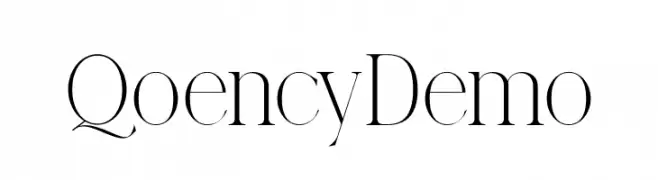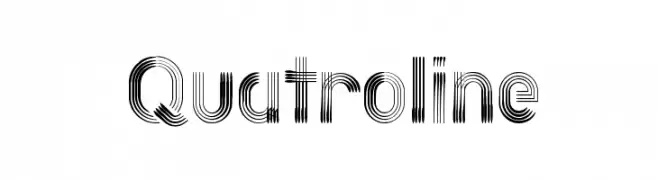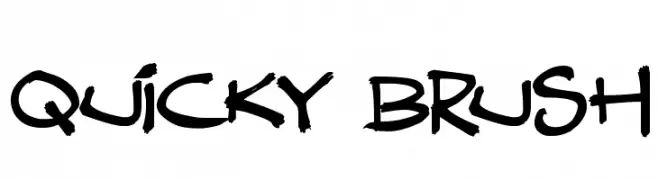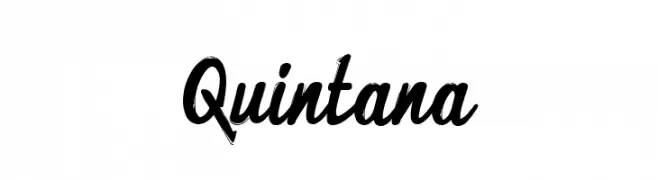
• Qoency Demo
A modern, elegant font with high contrast and subtle serifs, perfect for luxury branding.
• Qoency Italic Demo
A sleek, modern italic font with smooth curves and elegant slant.
• Quakiez Display
A bold, high-contrast font with angular serifs and a modern edge.
• Quakiez-Display
A bold, high-contrast serif font with angular cuts and modern flair.
• Quanto
A dynamic and playful script font with a handwritten feel.
• Quanto
A playful and dynamic script font with flowing, cursive letterforms.
• Quatroline
A modern, multi-line font with a dynamic and artistic style.
• Quicky Brush
A bold, brush-style font with dynamic, handcrafted strokes.
• Quinger
A modern, geometric font with clean lines and a minimalist aesthetic.
• Quintana
A bold, flowing script font with dynamic, interconnected strokes.